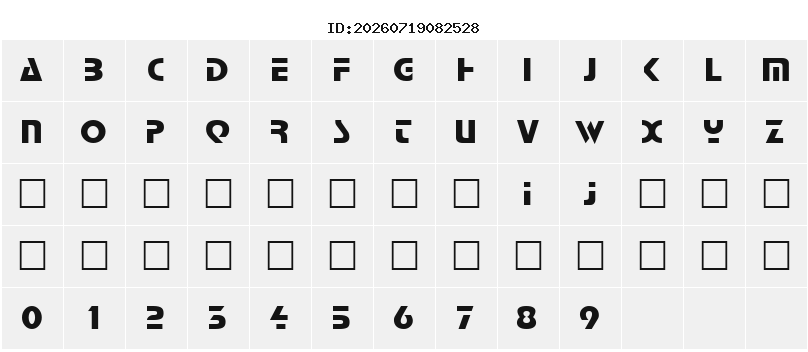
• Font Name: Comaro
• Full Font Name: Comaro Normal
About Comaro.ttf
Comaro.ttf is a modern, elegant sans-serif font designed for ultimate readability and visual harmony. Perfect for branding, headlines, web design, and print materials.